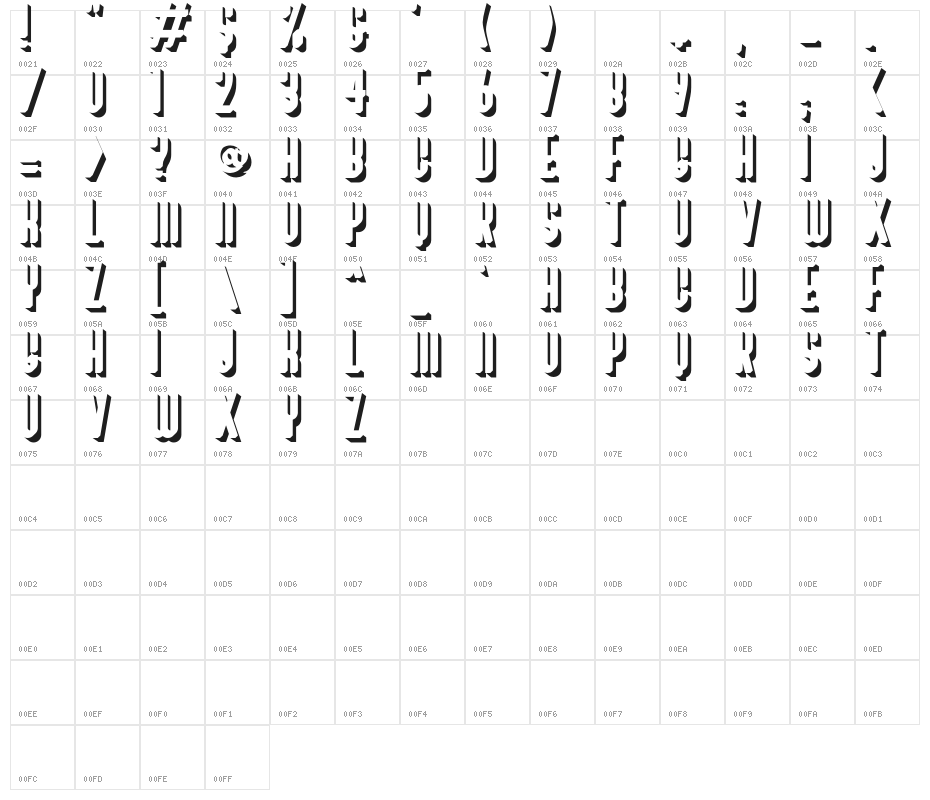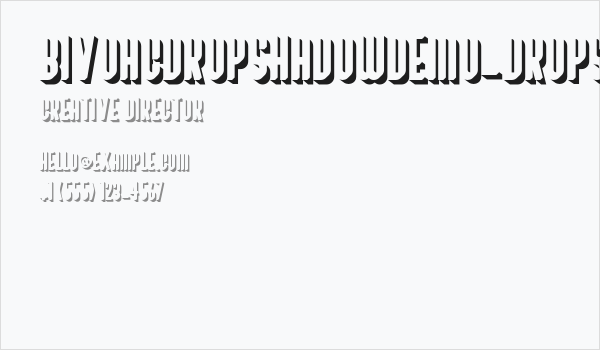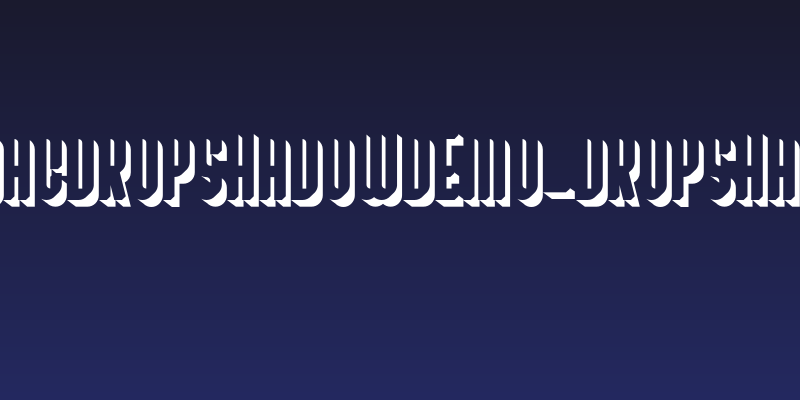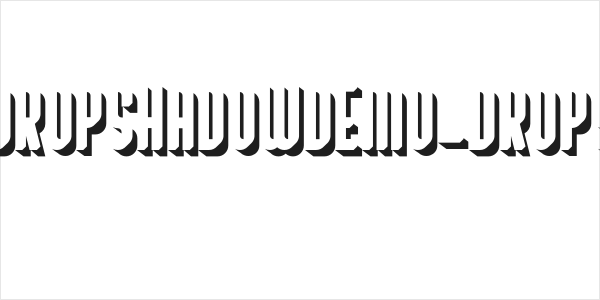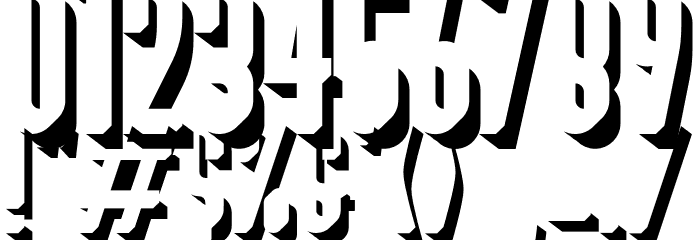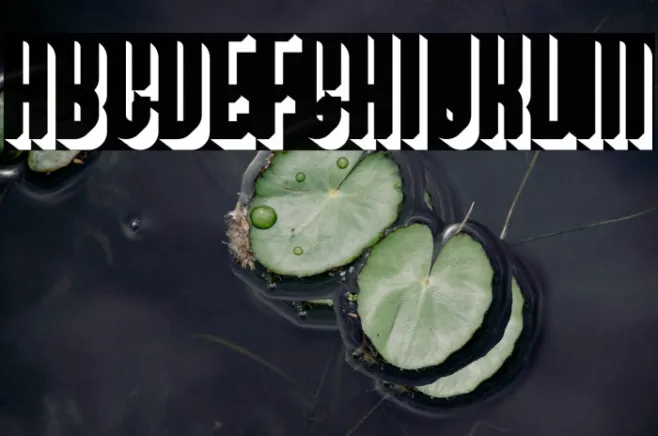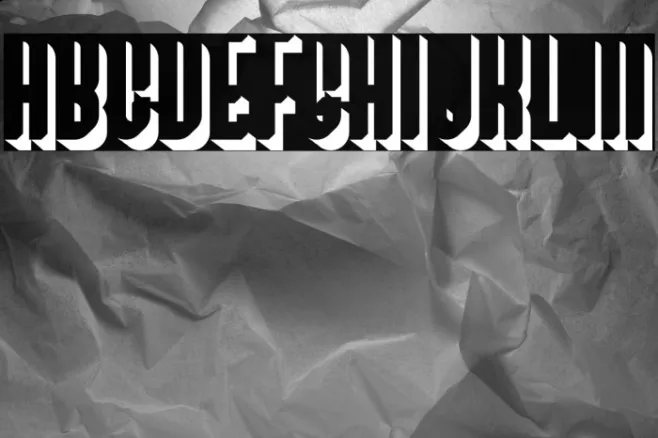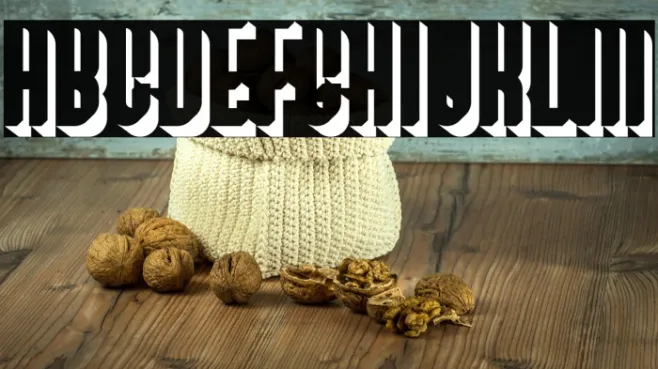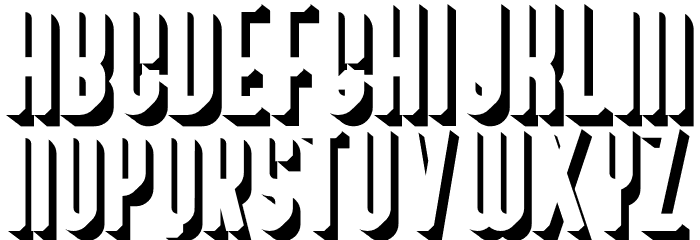
BivoacDropShadowDemo-DropShadow Font
BivoacDropShadowDemo-DropShadow Description
This font features a bold and striking design with a distinct drop shadow effect that adds depth and dimension to each character. The uppercase and lowercase letters are crafted with sharp, angular lines, creating a sense of strength and modernity. The numbers and special characters maintain this bold aesthetic, ensuring consistency across all elements. The drop shadow is prominent, giving the font a three-dimensional appearance that makes it stand out on any page. This style is particularly effective for creating eye-catching headlines or titles that demand attention.